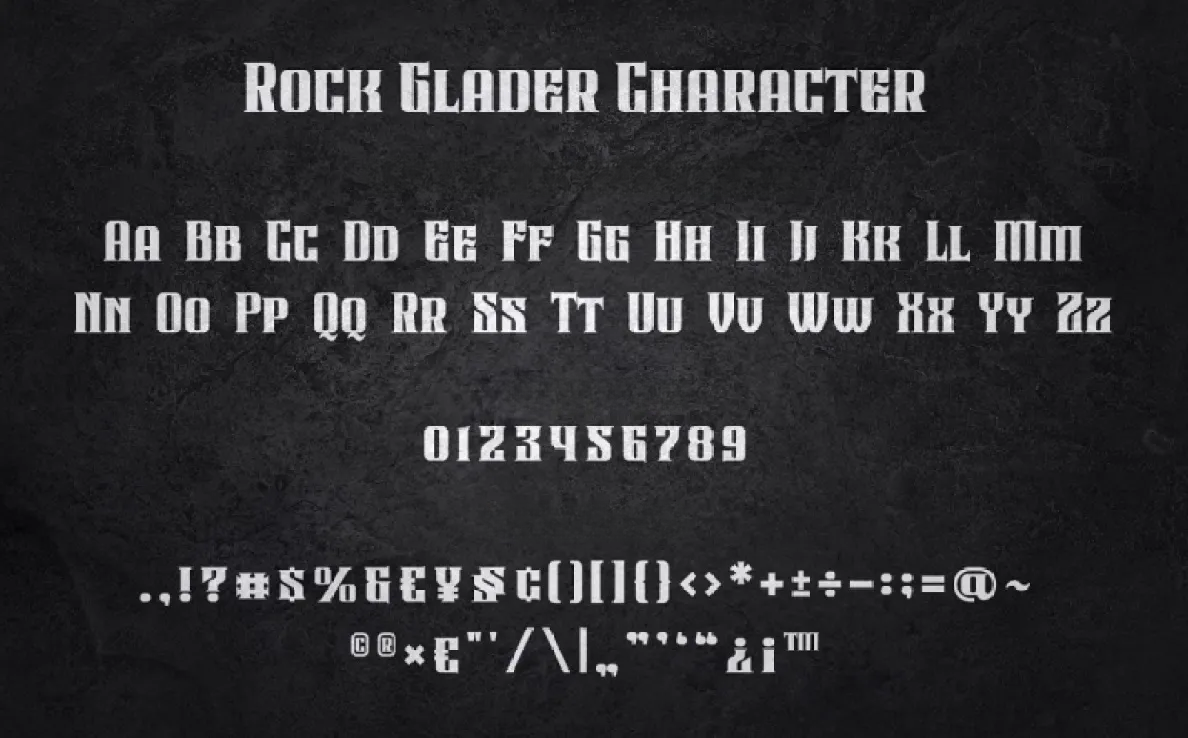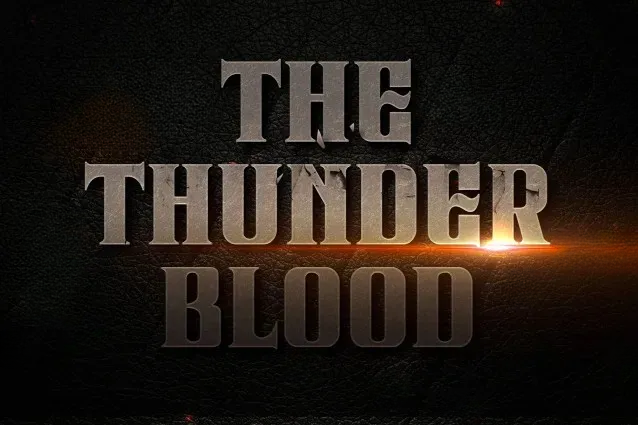
Rock Glader is a beautiful serif display font that brings a strong and confident style to any design. Its unique letter shapes and classic serif touches make it stand out, giving your projects a bold and eye-catching look.
Whether you want to add a playful vibe or a serious tone, Rock Glader adapts well to different moods and themes.
This font is crafted with great attention to detail and aesthetics, making it an excellent choice for various creative uses. From book covers and posters to packaging and merchandise, Rock Glader adds a touch of elegance and charm.
It also works perfectly for logotypes, giving your brand a memorable and professional appearance.
Rock Glader Font Family
Type Serif Display